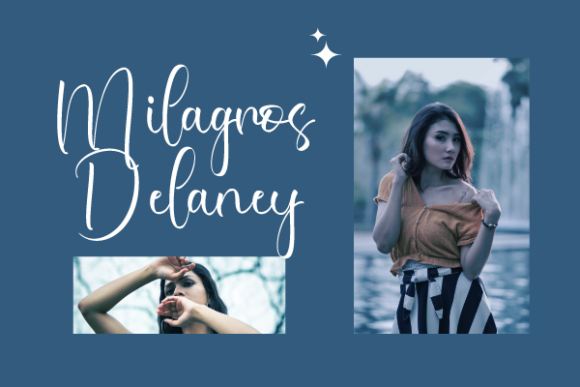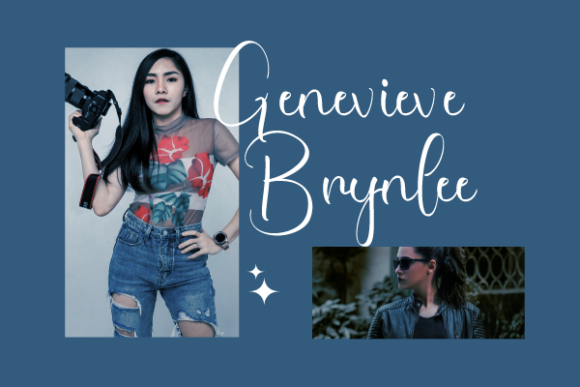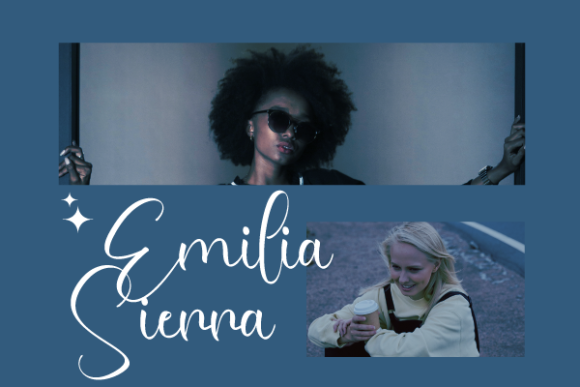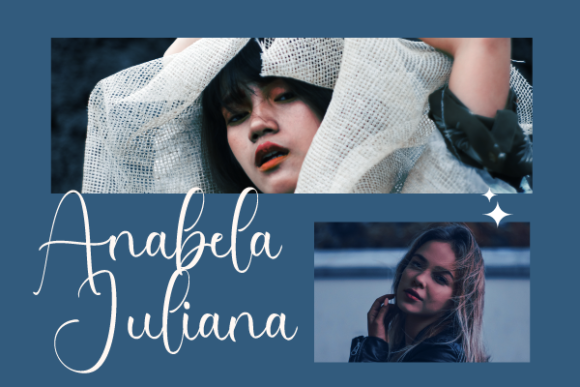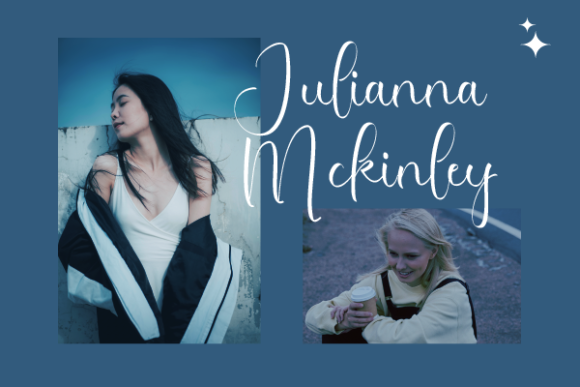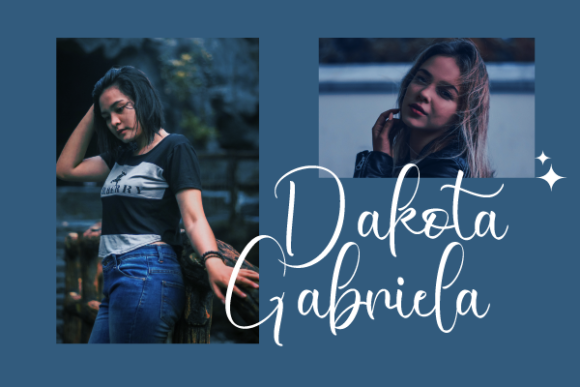
Introducing Bridget Font: Elevate Your Designs with Elegance and Sophistication
In the world of typography, fonts play a crucial role in conveying the tone and personality of a design. For designers and crafters looking to add a touch of elegance and sophistication to their projects, Bridget Font is an excellent choice. This stylish and chic script font is versatile and can be used for a wide range of applications, from blog posts and logos to invitations and decorations.
What is Bridget Font?
Bridget Font is a beautiful script font that exudes elegance and refinement. Its flowing lines and curves make it perfect for designs that require a touch of sophistication. Whether you’re working on a branding project, creating invitations, or designing greeting cards, Bridget Font is sure to impress.
Key Features of Bridget Font
- Versatility: Bridget Font can be used for various projects, such as blog posts, logos, branding, ads, invitations, greeting cards, planners, photo albums, decorations, and much more.
- Elegant and Chic: The font’s stylish and chic design makes it perfect for designs that require a touch of sophistication.
- Script Style: Bridget Font is a script font that features flowing lines and curves, giving it a unique and elegant look.
- Easy to Read: Despite its elegant design, Bridget Font is easy to read, making it perfect for body text and headings.
Uses of Bridget Font
Bridget Font is a versatile font that can be used for a wide range of projects. Here are some ideas to get you started:
- Branding: Use Bridget Font to create elegant and sophisticated brand identities, including logos, business cards, and letterheads.
- Invitations: Add a touch of elegance to your invitations, whether it’s for a wedding, birthday party, or baby shower.
- Greeting Cards: Create beautiful greeting cards for special occasions, such as Christmas, Valentine’s Day, or Mother’s Day.
- Blog Posts: Use Bridget Font to add a touch of elegance to your blog posts, making them more visually appealing and engaging.
- Decorations: Use Bridget Font to create beautiful decorations, such as wall art, banners, and signs.
Tips for Using Bridget Font
Here are some tips for using Bridget Font effectively:
- Pair with Other Fonts: Pair Bridget Font with other fonts to create a unique and visually appealing design.
- Use for Headings: Use Bridget Font for headings and titles to add a touch of elegance to your design.
Bridget Font is a beautiful and versatile script font that can elevate your designs with elegance and sophistication. Its flowing lines and curves make it perfect for designs that require a touch of refinement. Whether you’re a designer or crafter, Bridget Font is an excellent choice for a wide range of projects. With its ease of use and versatility, you can create stunning designs that will leave a lasting impression.